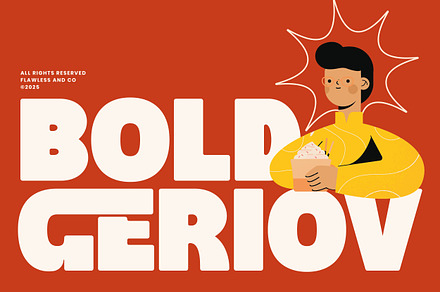
Bold Geriov – Bold Display Font
A bold display face with tightly closed counters and minimal spacing, designed to be set large and packed together.
Display faces of this weight need negative tracking to work, and the spacing is drawn assuming it will be set tight rather than at default.
- Spacing drawn for tight setting
Ideal for
- Poster and event graphics
- Merch and apparel print
- Music and club artwork
- Editorial headlines